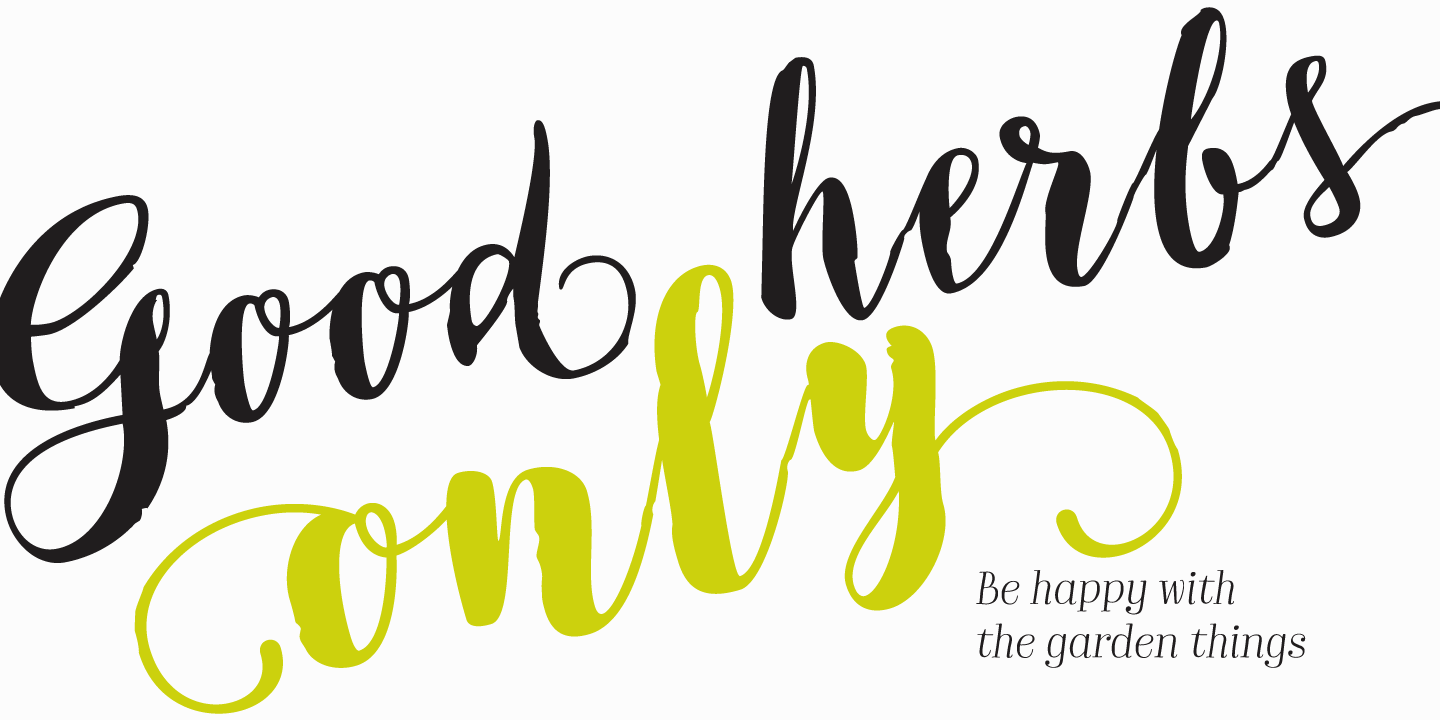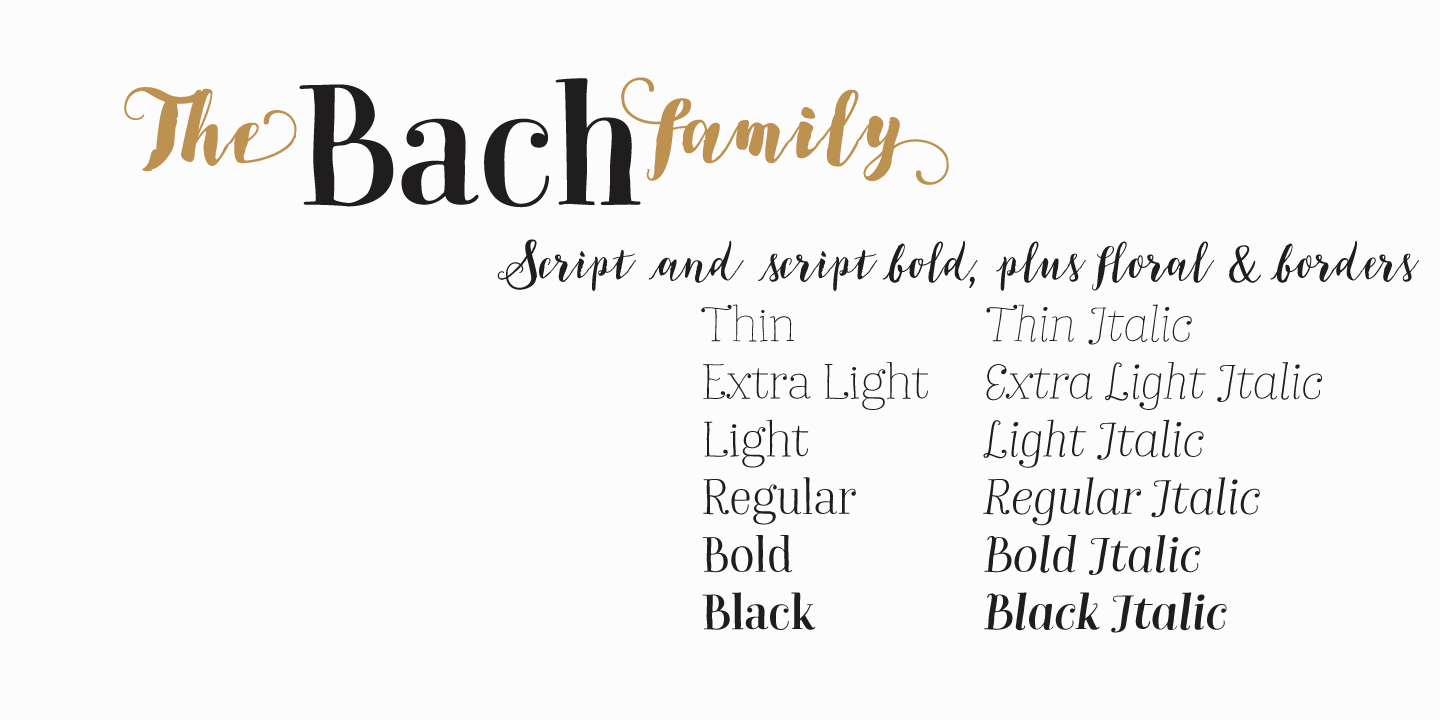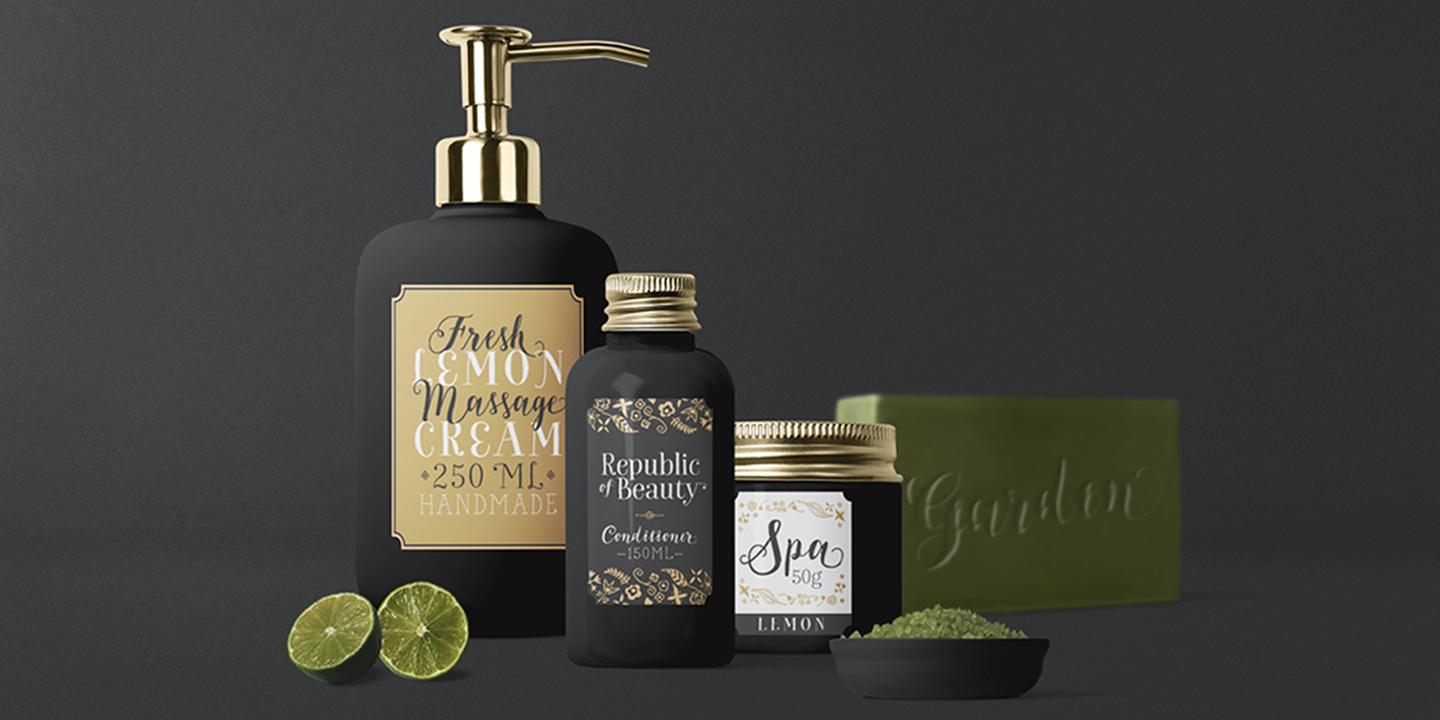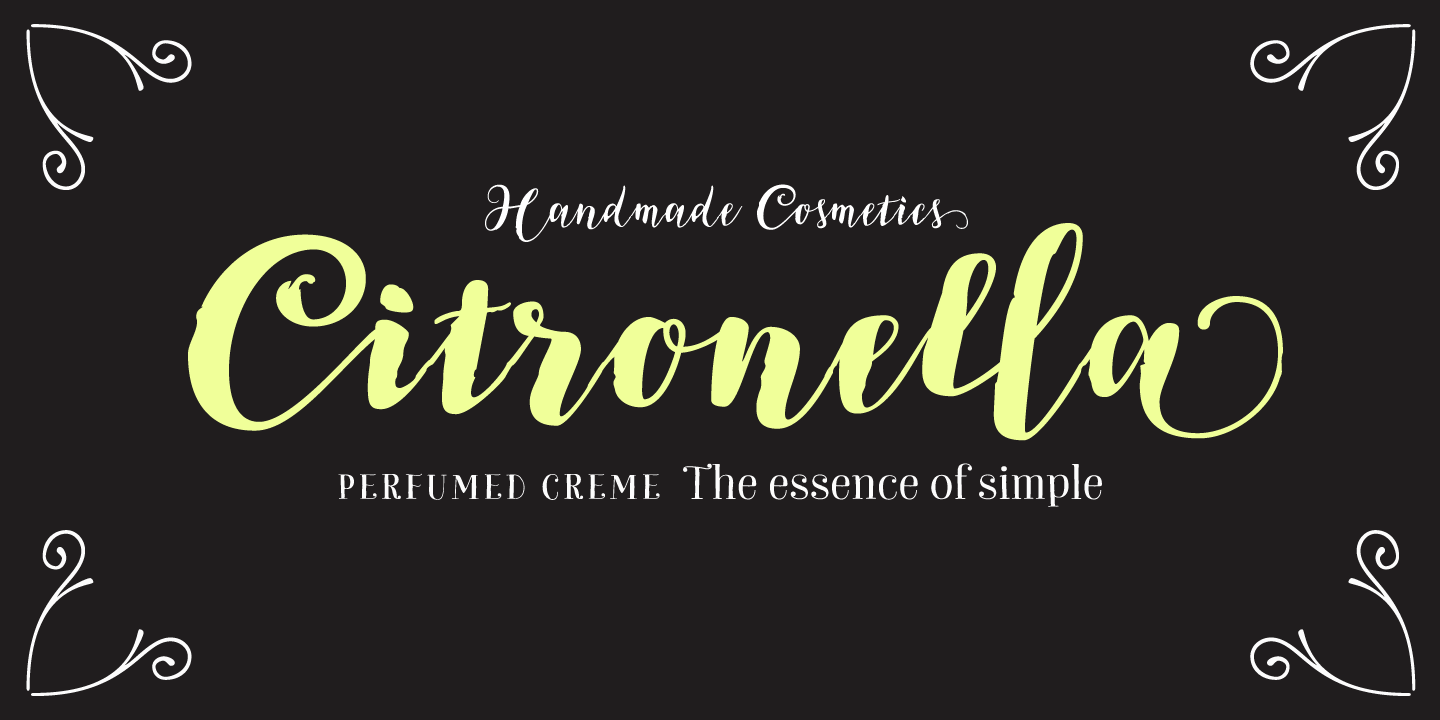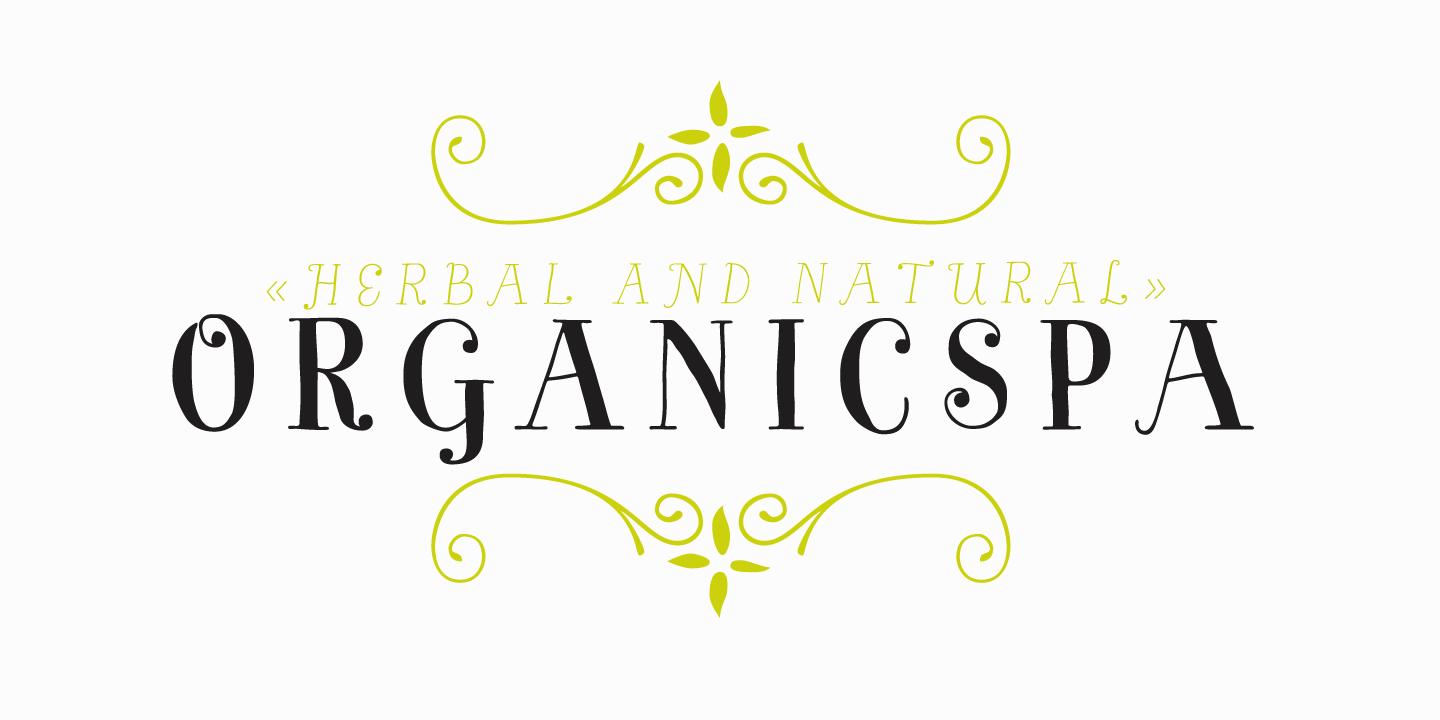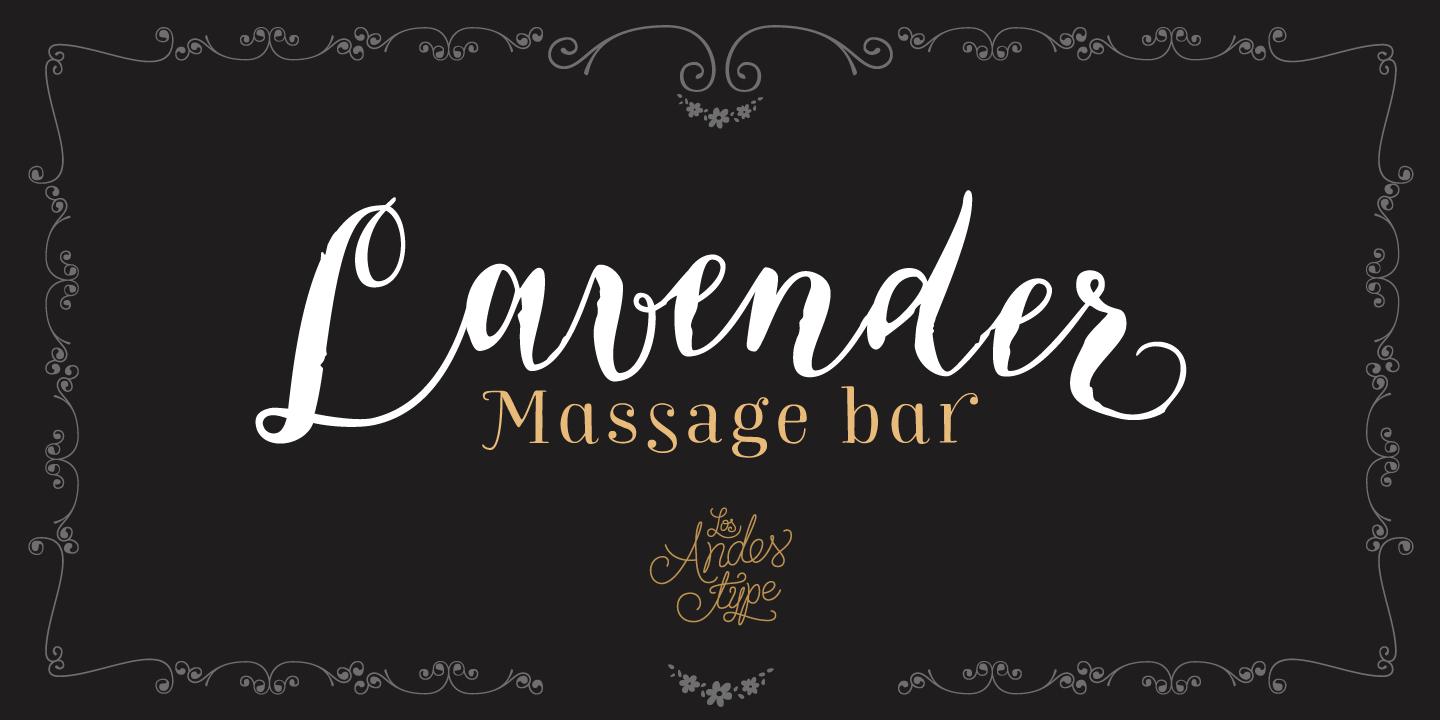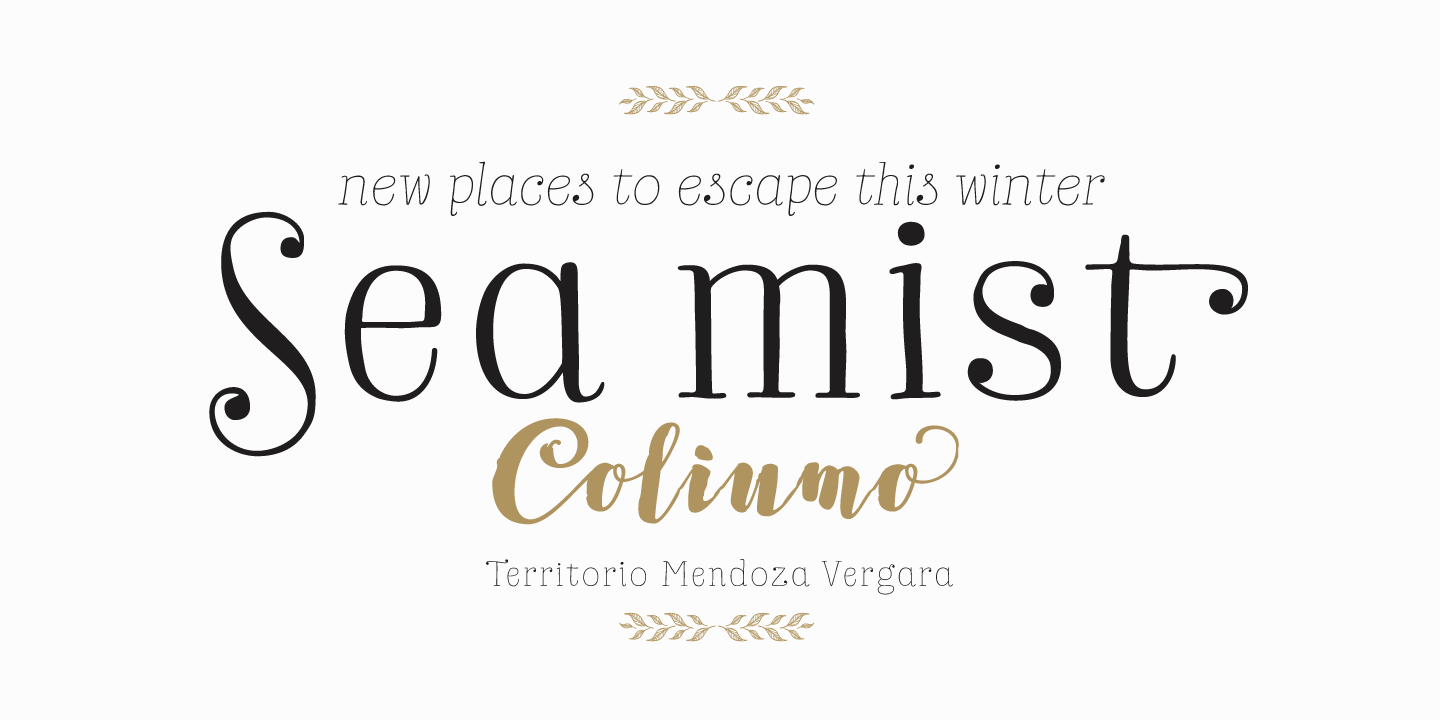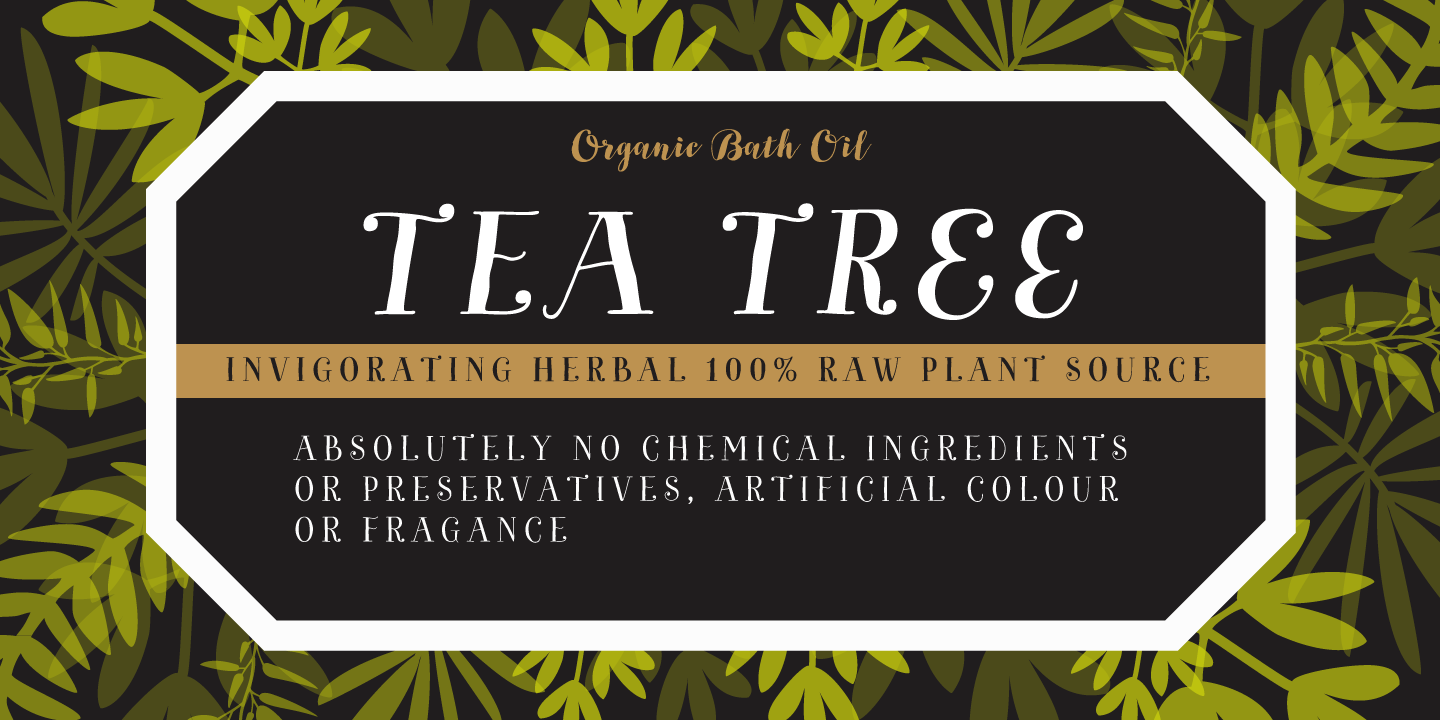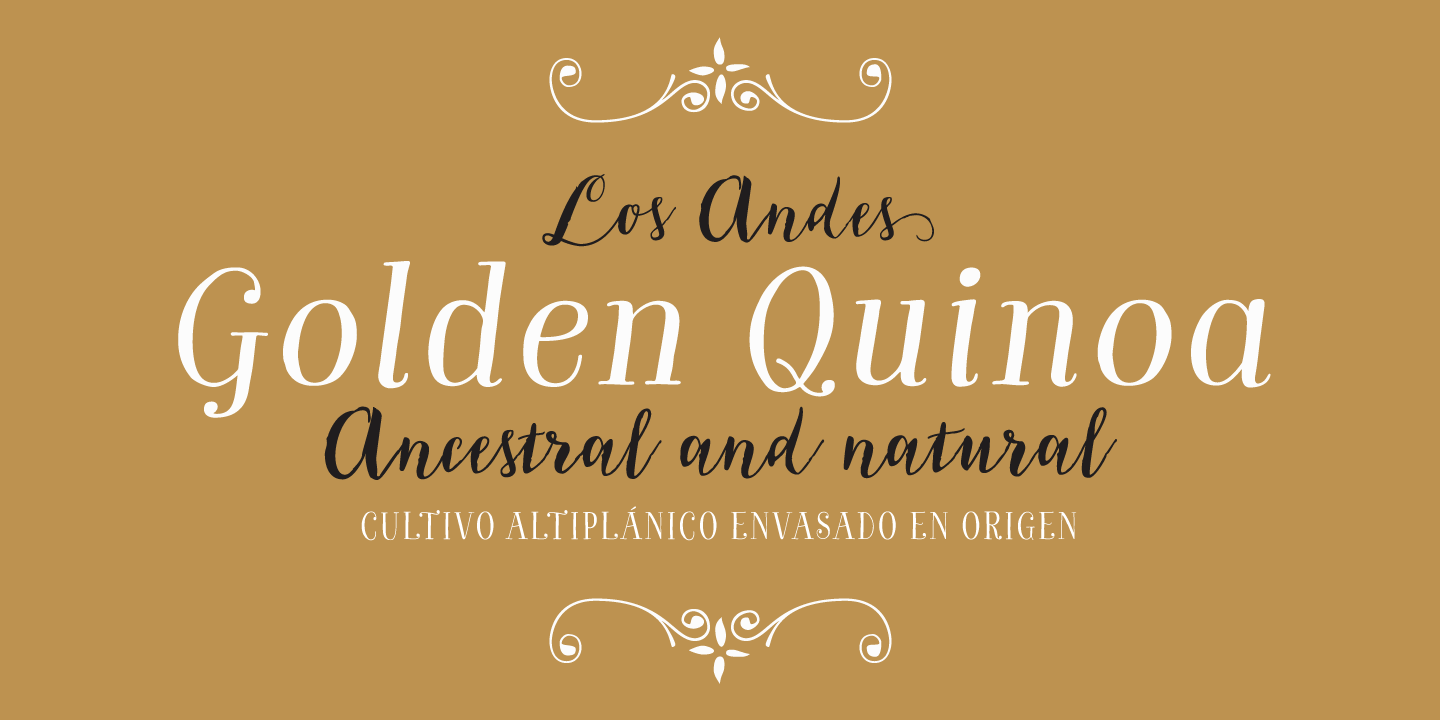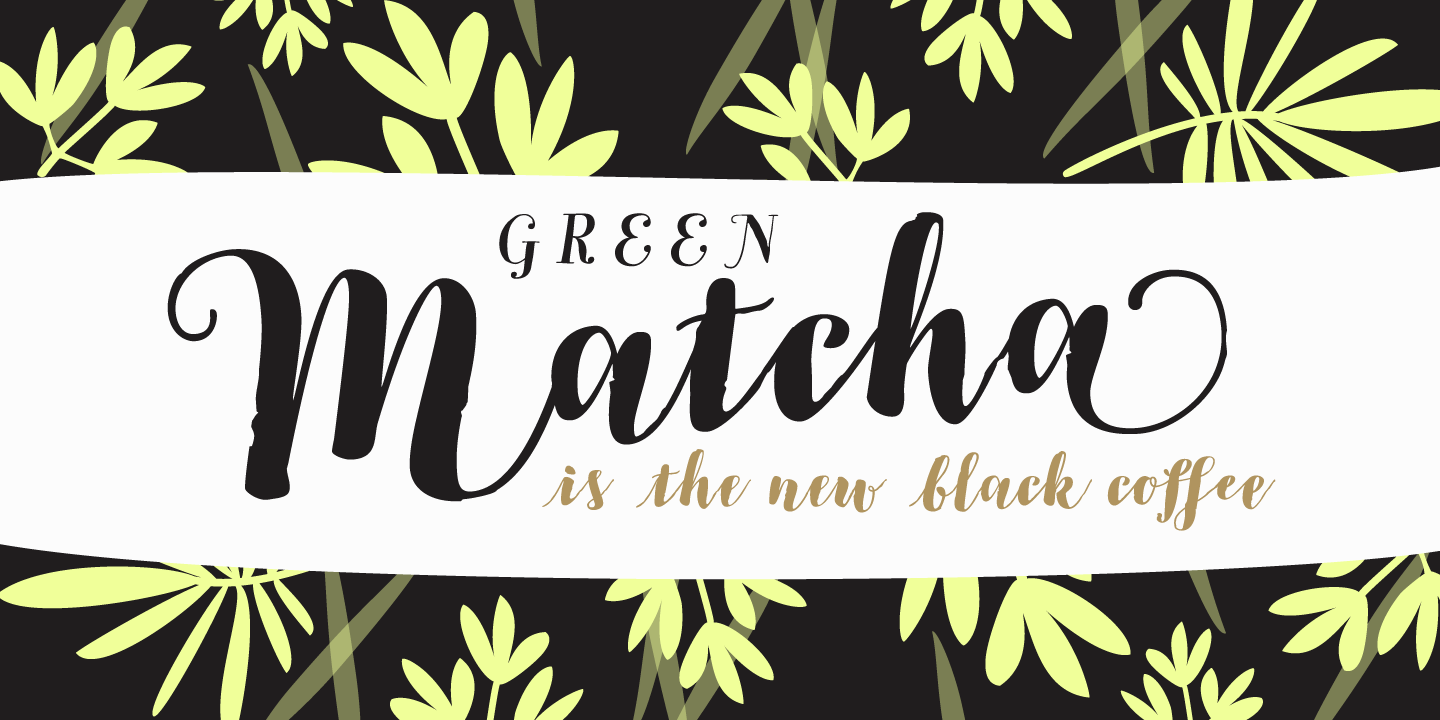
Bach Family (15 fonts)
From Los Andes Type
Bach comes in two styles: a 6-weight Serif font in regular and italic versions, and a 2-weight Script in regular and bold versions. Ornaments are also included! Bach Script is based on the calligraphic catchwords set (handcrafted with brush pen) and the Serif version of the Garden typeface. This font is the perfect choice for labelling, packaging, illustrated books and posters.
Go back to nature and feel the vibration again, this time with Bach!
Bach is a Mendoza Vergara Studio design with the collaboration of Cecilia Mendoza in digital editing, under the supervision of Luciano Vergara and Coto Mendoza.
OpenType features: Ligatures, Alternates, Swash